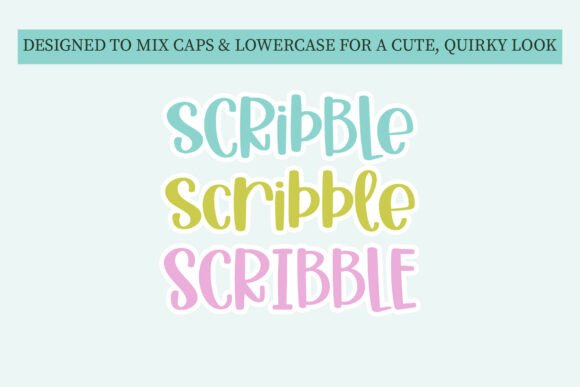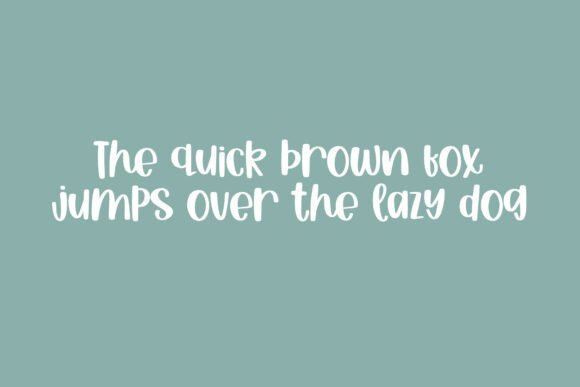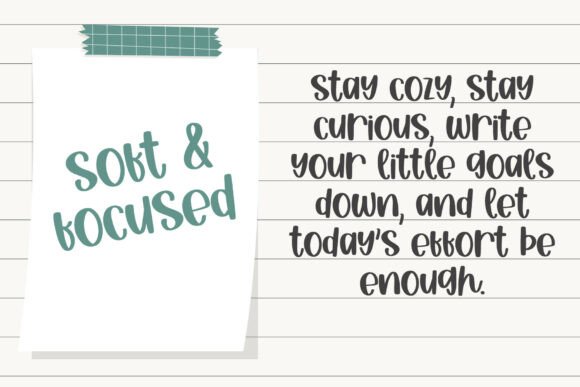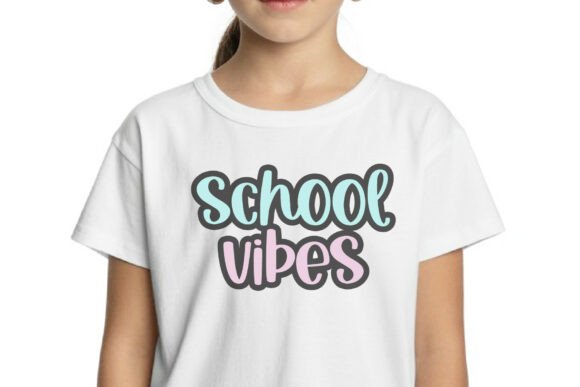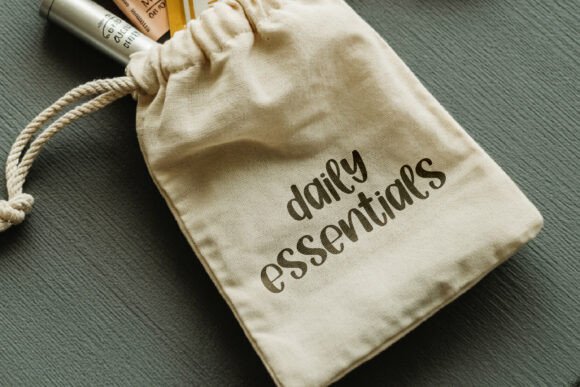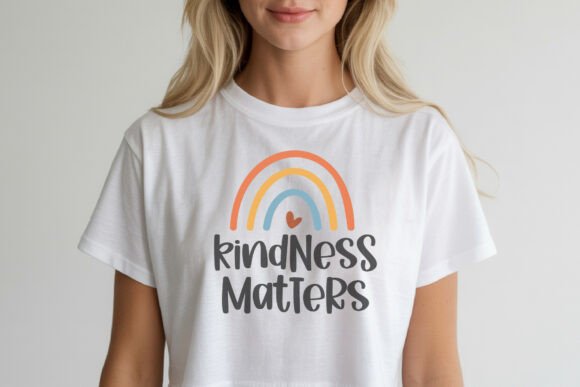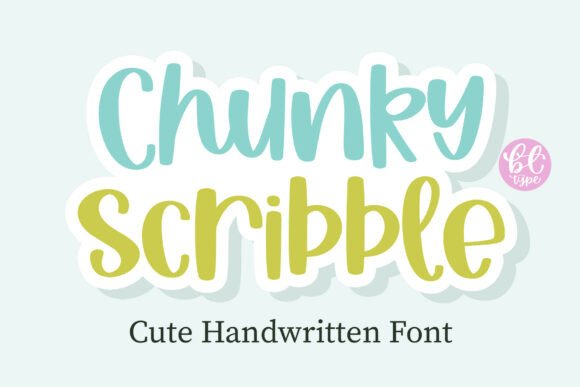
Introducing Chunky Scribble Font: The Ultimate Choice for Fun and Quirky Designs
Are you a designer or crafter looking for a font that can add a touch of playfulness and whimsy to your projects? Look no further than Chunky Scribble Font! This adorable, chunky handwritten font is designed to mix caps and lowercase letters for a fun, quirky look that’s perfect for a wide range of applications.
What Makes Chunky Scribble Font So Special?
Chunky Scribble Font is a unique and eye-catching font that’s sure to make your designs stand out. Its soft curves and bold strokes make every word feel playful yet easy to read, making it perfect for kids’ shirts, school vibes designs, stickers, planners, and all your Cricut or Silhouette projects.
One of the things that sets Chunky Scribble Font apart is its ability to mix caps and lowercase letters in a way that looks intentional and stylish. This makes it perfect for creating fun and quirky designs that are sure to appeal to kids and adults alike.
Chunky Scribble Font is incredibly versatile and can be used for a wide range of projects, including:
- Kids’ shirts and hoodies: Add a fun and playful touch to kids’ clothing with Chunky Scribble Font.
- School vibes designs: Create fun and quirky designs for school supplies, backpacks, and more.
- Stickers: Use Chunky Scribble Font to create fun and colorful stickers that are perfect for decorating laptops, water bottles, and more.
- Planners: Add a touch of whimsy to your planners and journals with Chunky Scribble Font.
- Cricut and Silhouette projects: Chunky Scribble Font is perfect for cutting machines, making it easy to create custom signs, decals, and more.
Why Designers and Crafters Love Chunky Scribble Font
Designers and crafters love Chunky Scribble Font for a variety of reasons, including:
- Easy to read: Despite its playful and quirky look, Chunky Scribble Font is easy to read, making it perfect for designs that need to be both fun and functional.
- Highly versatile: Chunky Scribble Font can be used for a wide range of projects, from kids’ clothing to planners and stickers.
- Unique and eye-catching: Chunky Scribble Font is sure to make your designs stand out, thanks to its bold strokes and soft curves.
Tips for Using Chunky Scribble Font
Here are a few tips for getting the most out of Chunky Scribble Font:
- Experiment with different colors: Chunky Scribble Font looks great in a variety of colors, so don’t be afraid to experiment and find the perfect hue for your design.
- Mix and match with other fonts: Chunky Scribble Font pairs well with a variety of other fonts, so feel free to mix and match to create a unique look.
- Use it for titles and headings: Chunky Scribble Font is perfect for titles and headings, where its bold strokes and soft curves can really make an impact.
If you’re looking for a font that can add a touch of playfulness and whimsy to your designs, look no further than Chunky Scribble Font. With its soft curves, bold strokes, and ability to mix caps and lowercase letters, this adorable font is perfect for a wide range of projects, from kids’ shirts to planners and stickers. So why wait? Download Chunky Scribble Font today and start creating fun and quirky designs that are sure to delight!